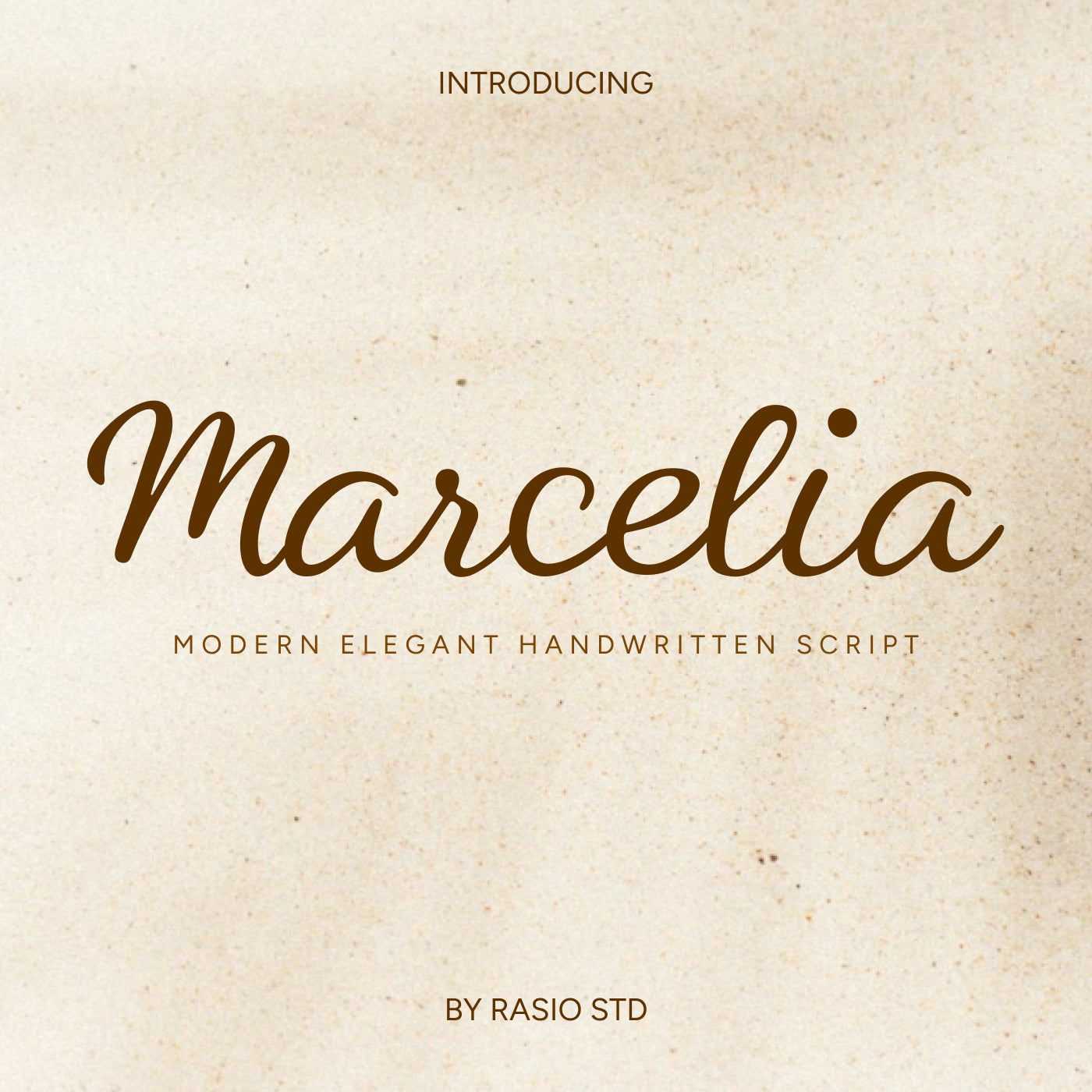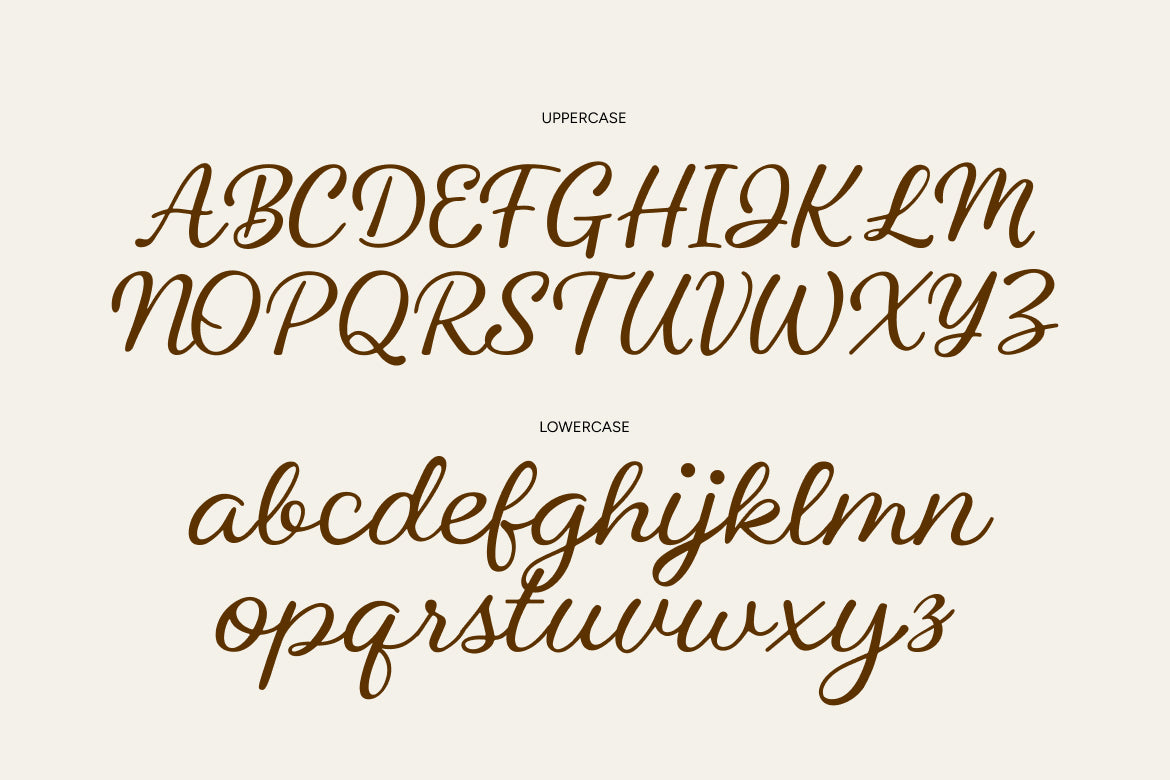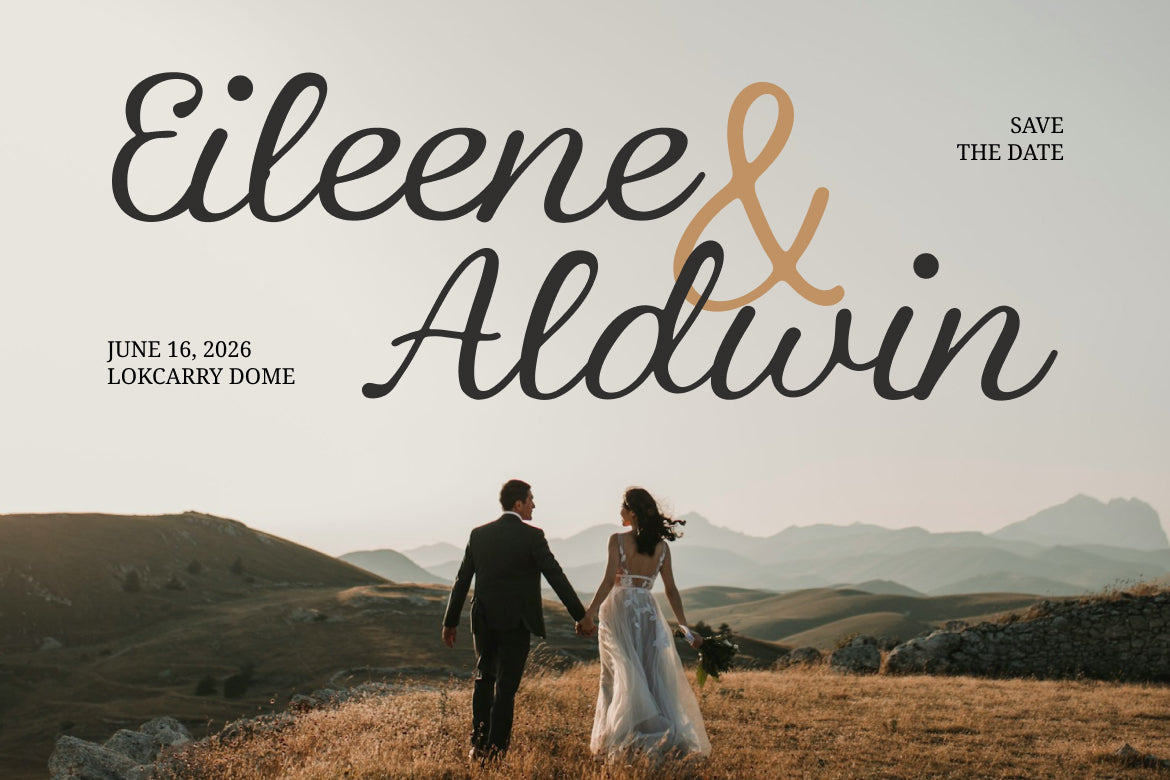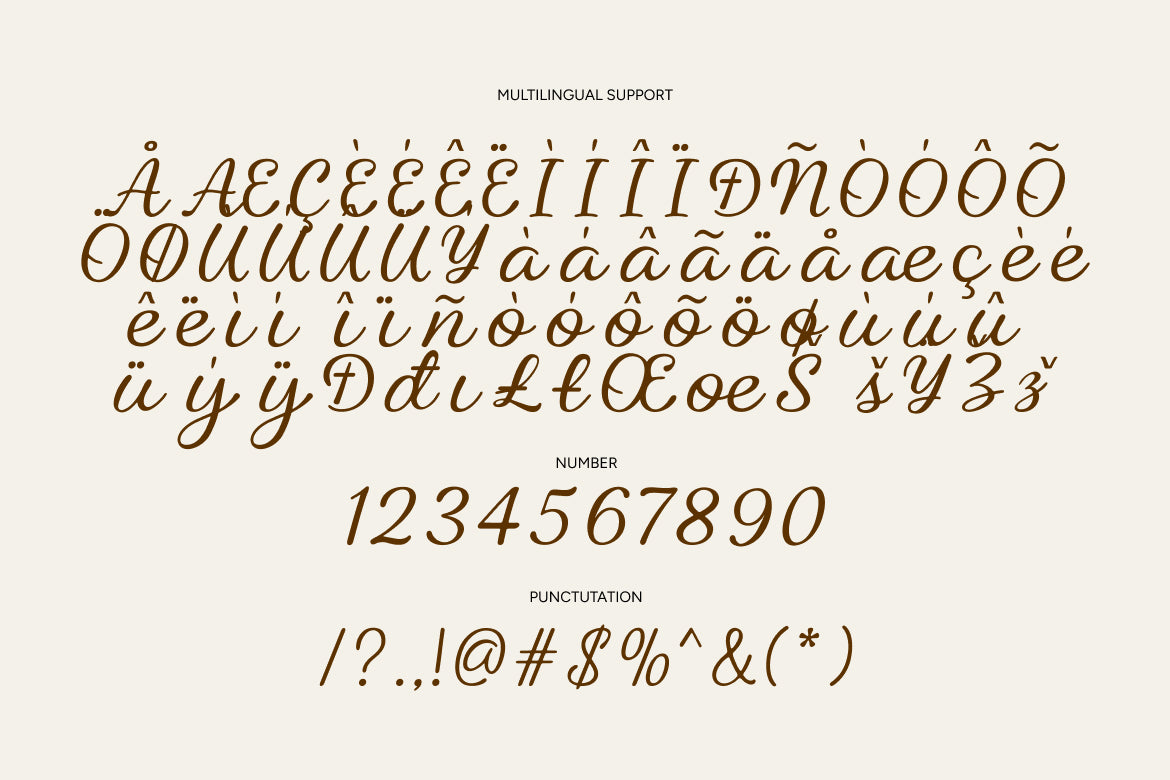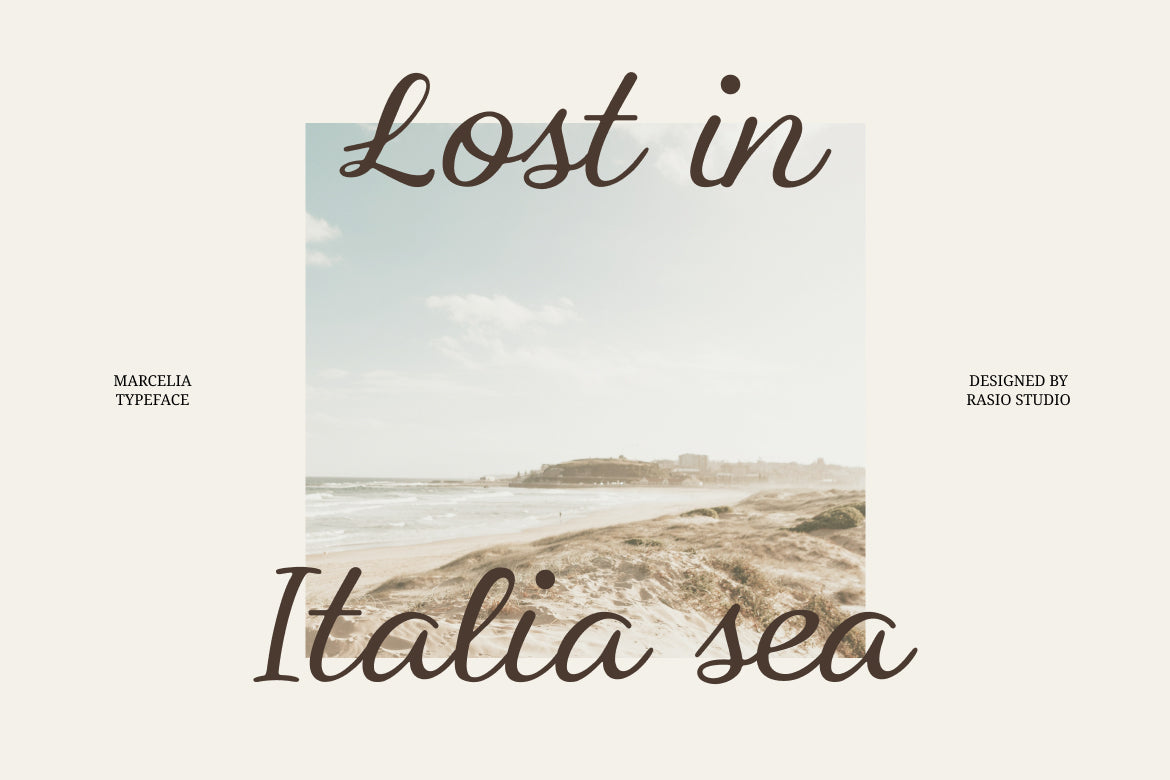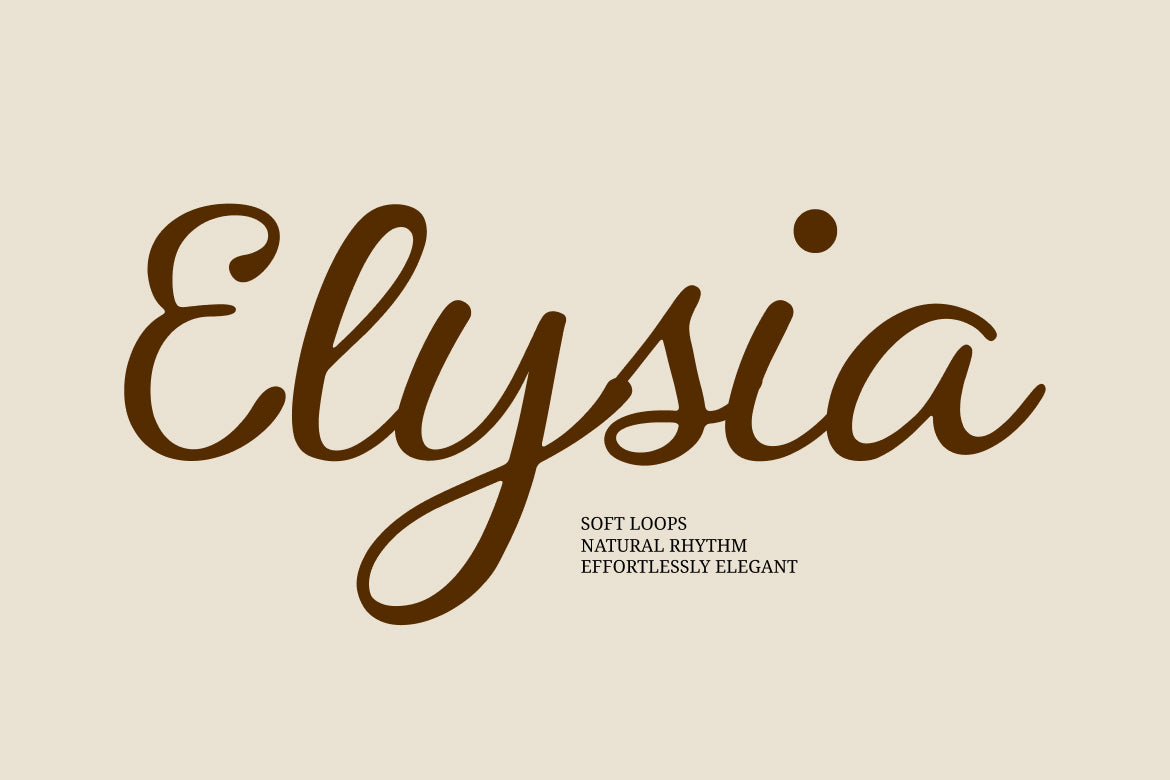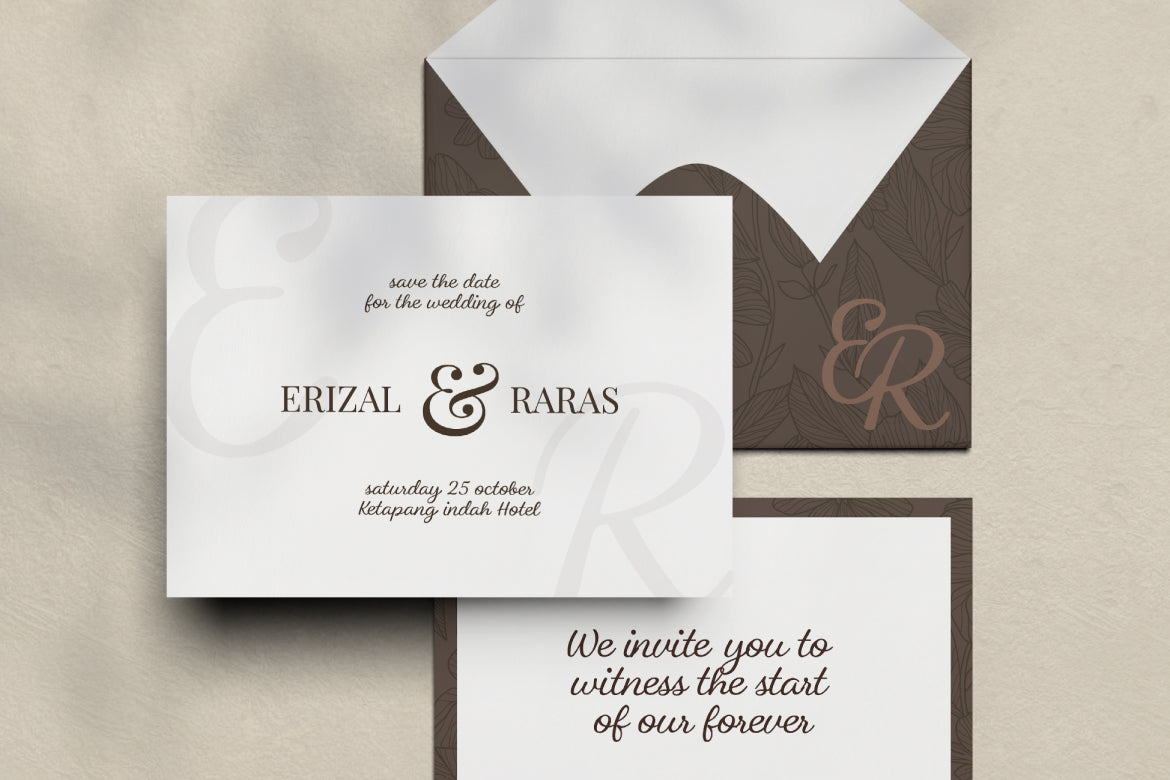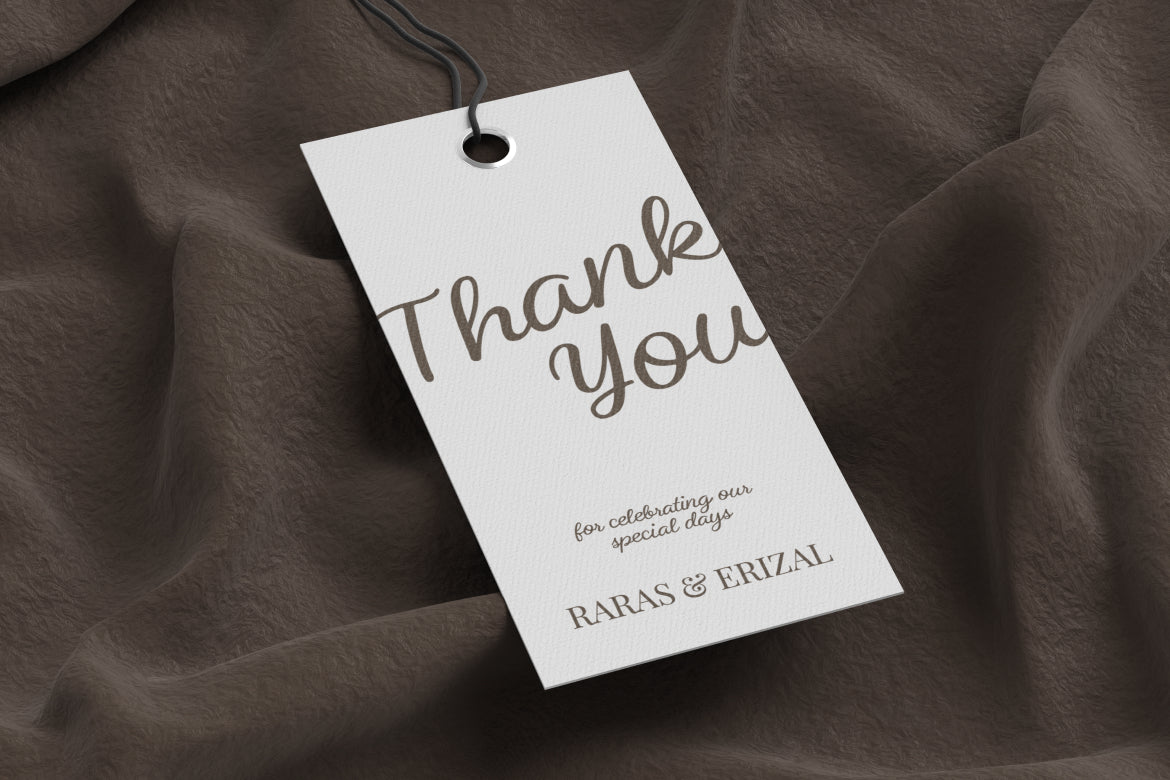
Marcelia Modern Elegant Handwritten Script Font
Marcelia Elegant Handwritten Script Font brings a touch of sophistication and warmth through its smooth flowing lines and natural rhythm. Designed with elegance and modern charm, this typeface captures the beauty of cursive handwriting, making every word feel personal and refined. Relevance and Use Cases is perfect for wedding stationery, invitation cards, feminine branding, beauty product packaging, fashion editorials, and creative quotes that require an elegant and handwritten touch.
Marcelia Modern Elegant Handwritten Script Font is a cursive typeface available in TTF, OTF, and WOFF formats, including uppercase and lowercase letters, numerals, punctuation, and multilingual support.